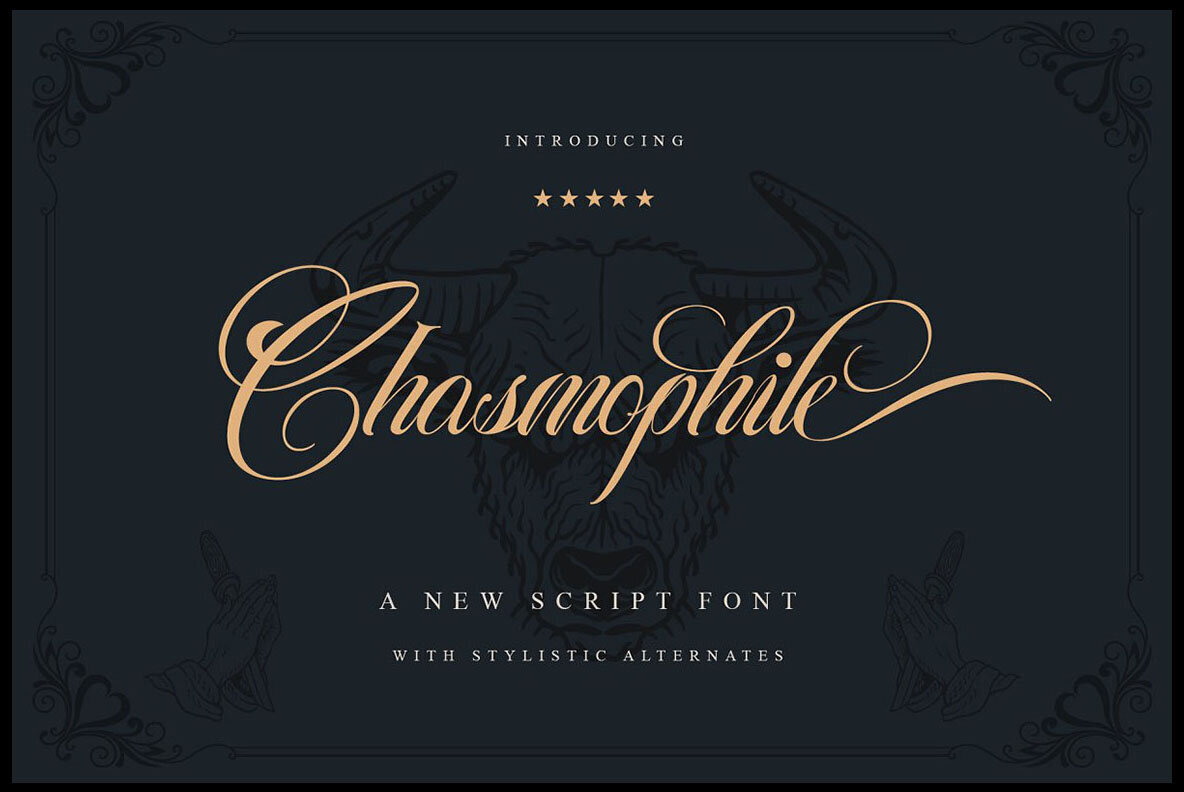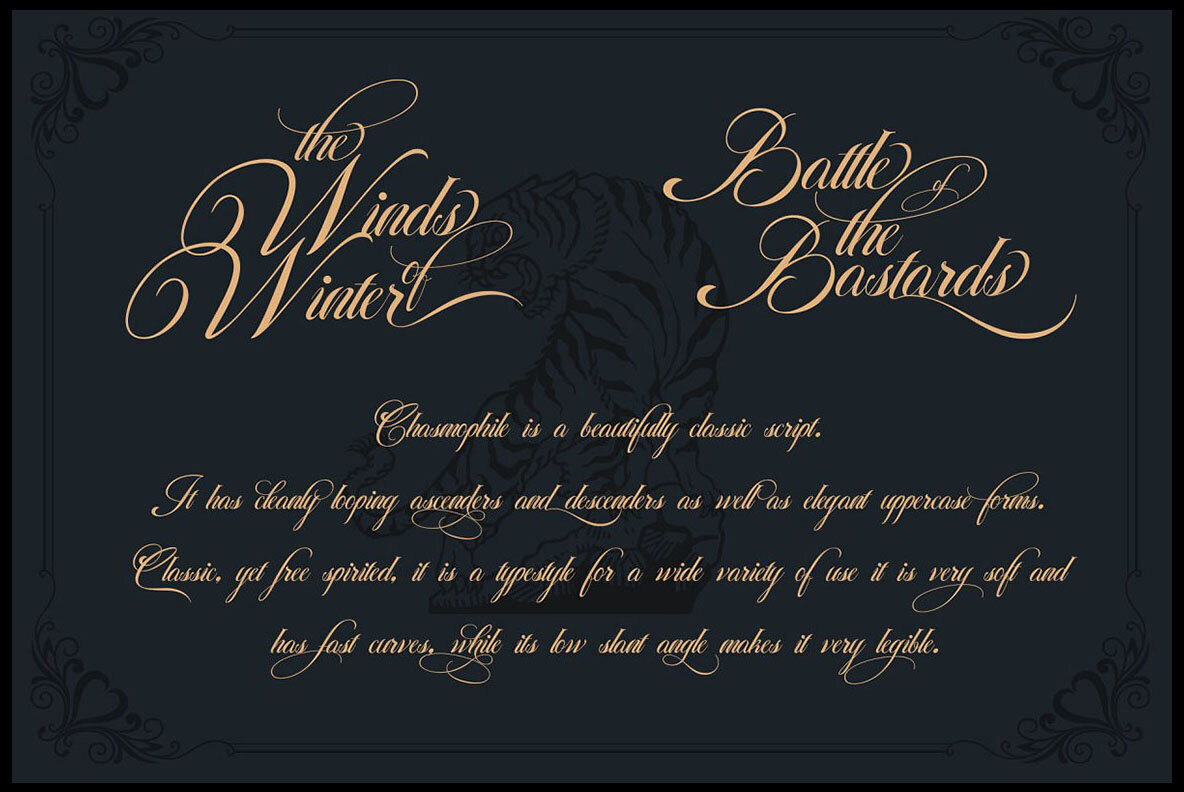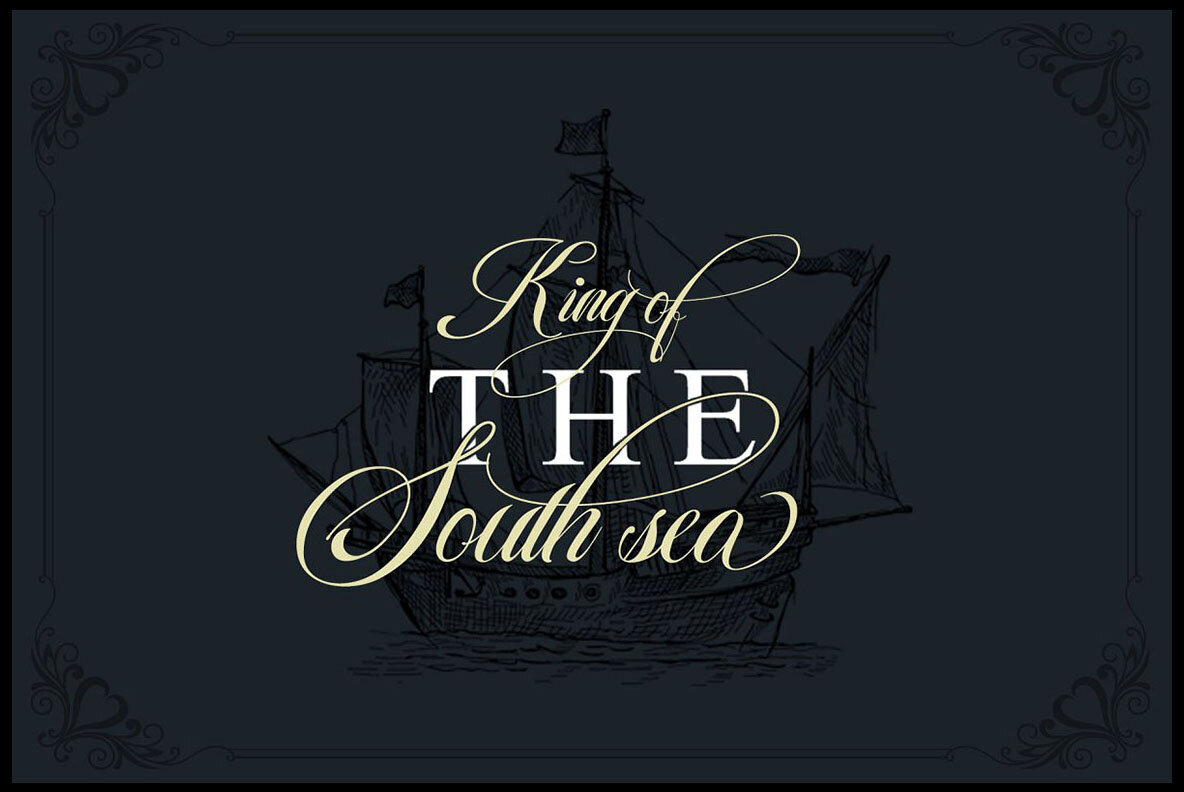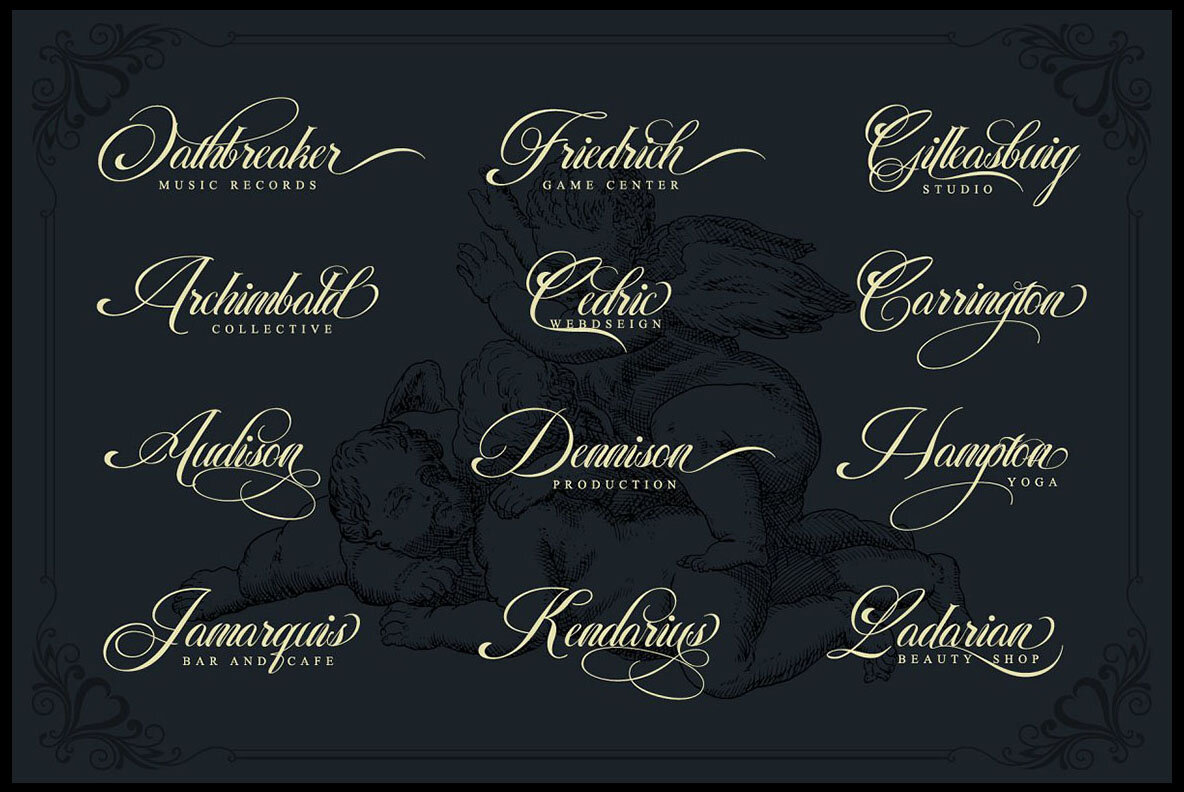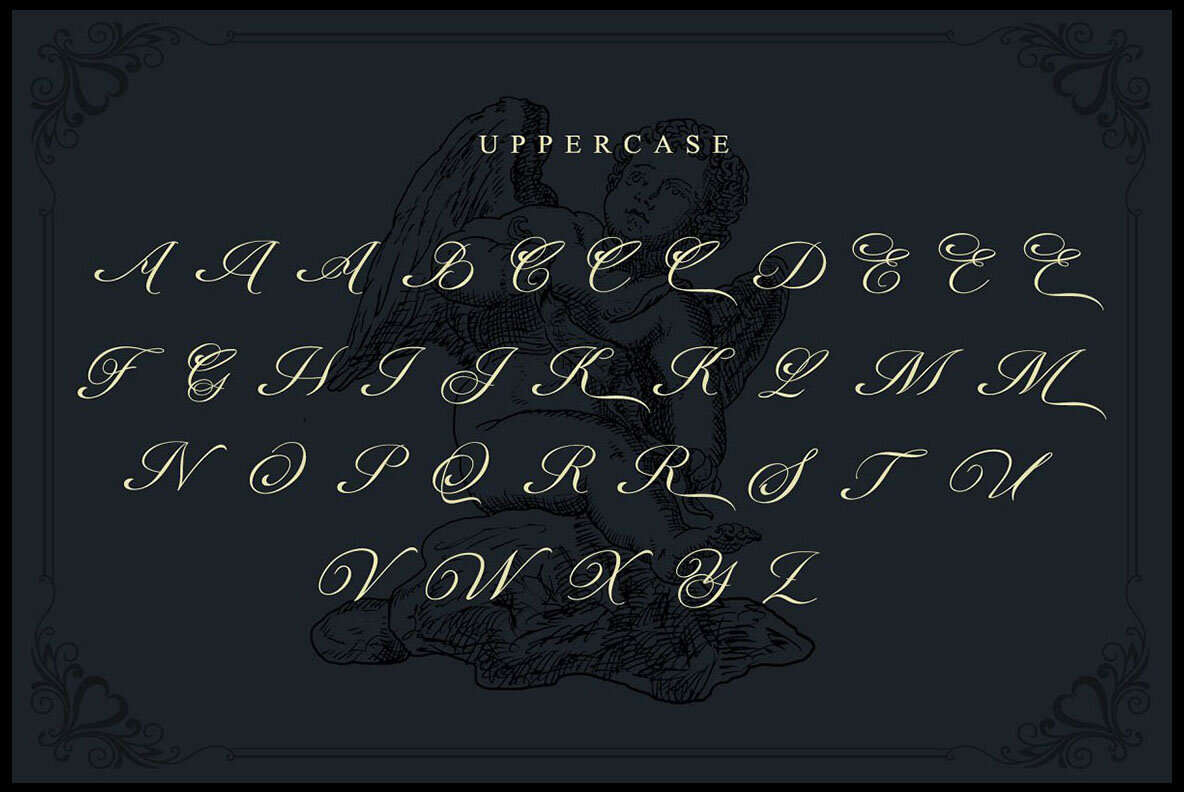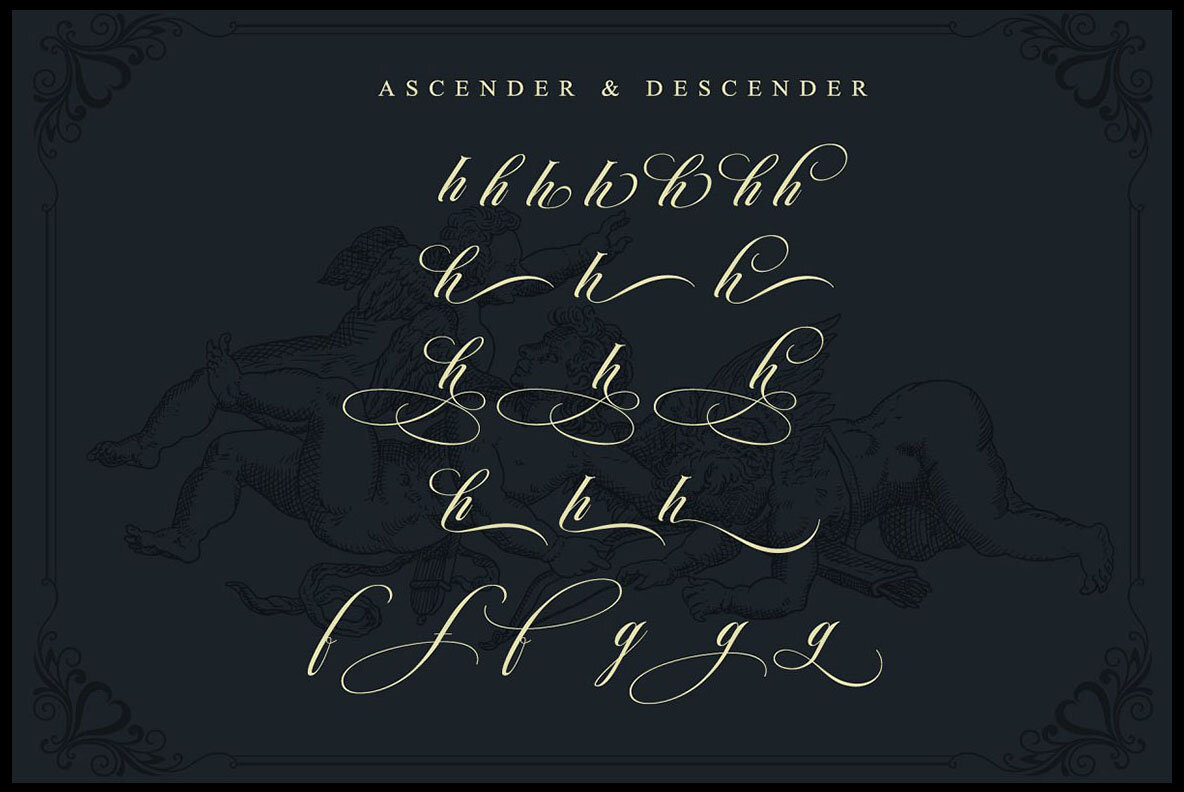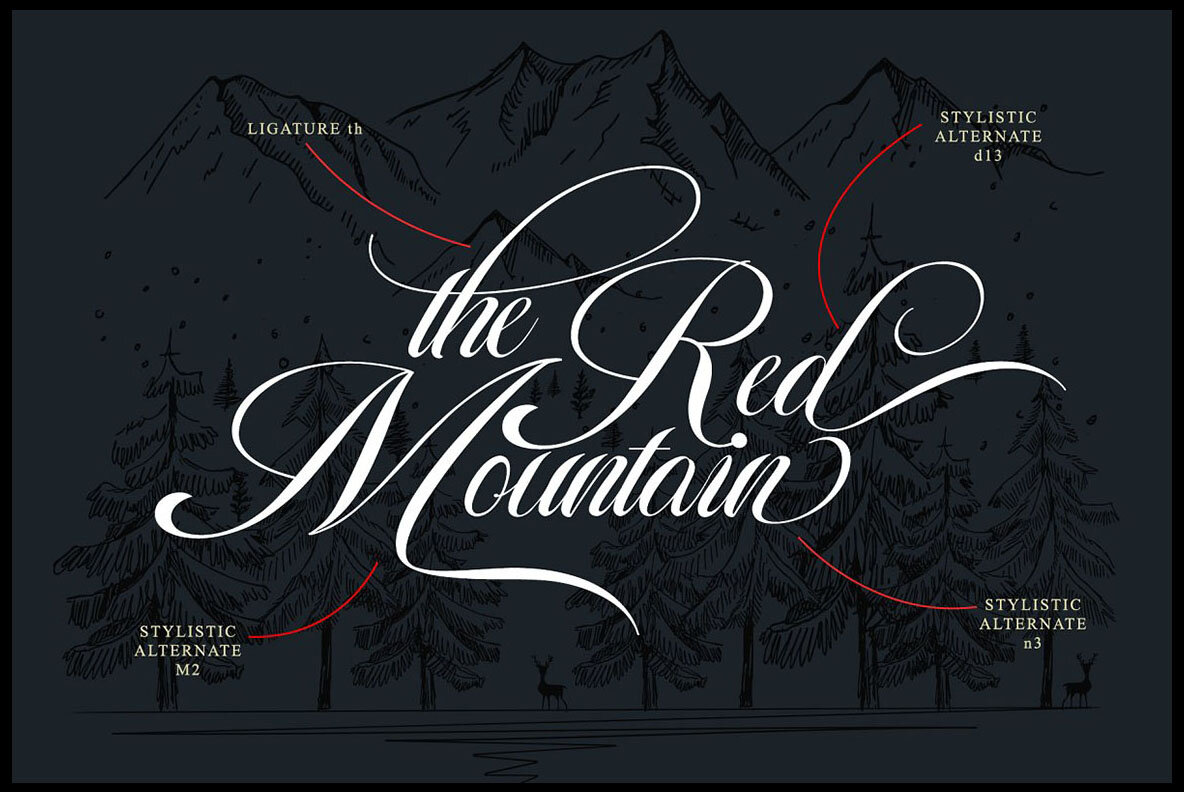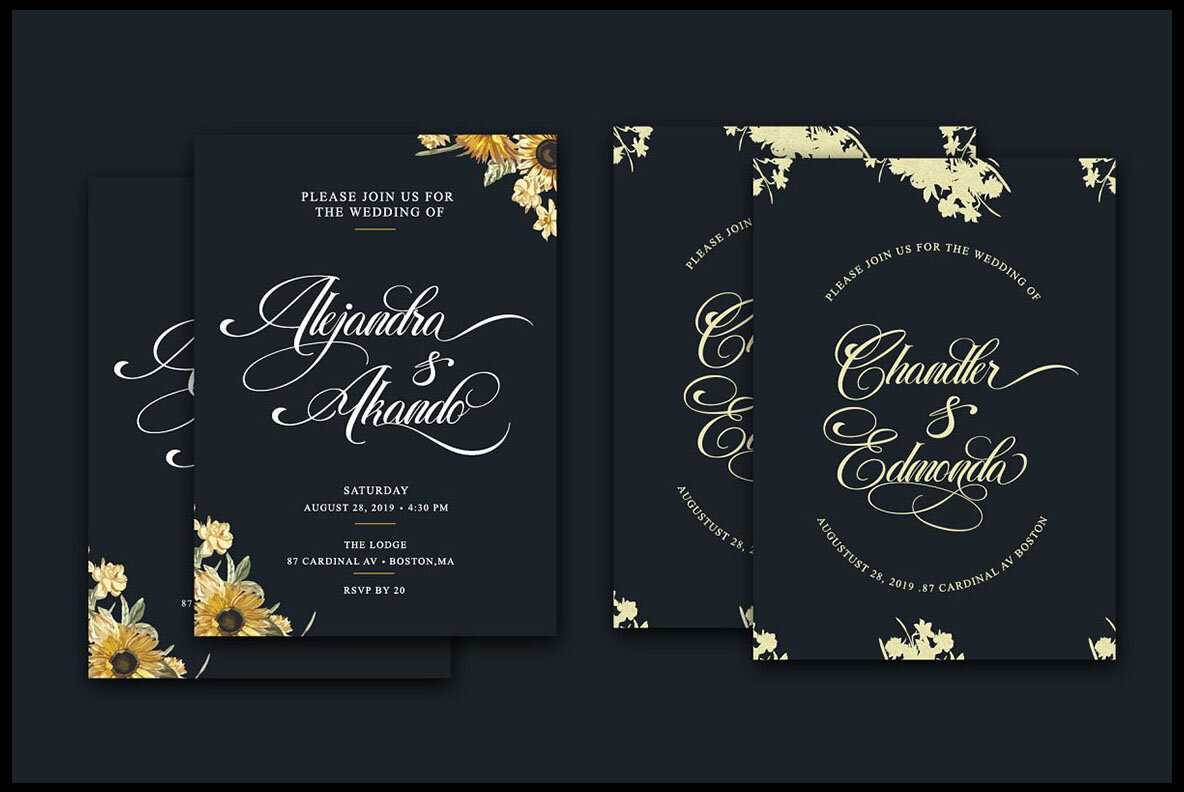
Chasmophile Font
Chasmophile Regular
Inspired by vintage decorative letters and cards, Chasmophile is a font that captures the elegance of ornamental design. With its ornate vintage style and abundance of swashes, this font is perfect for creating realistic headers. Chasmophile works beautifully for branding and advertising, offering a distinctive touch to any project.Chasmophile: Vintage-Inspired Decorative Script Font